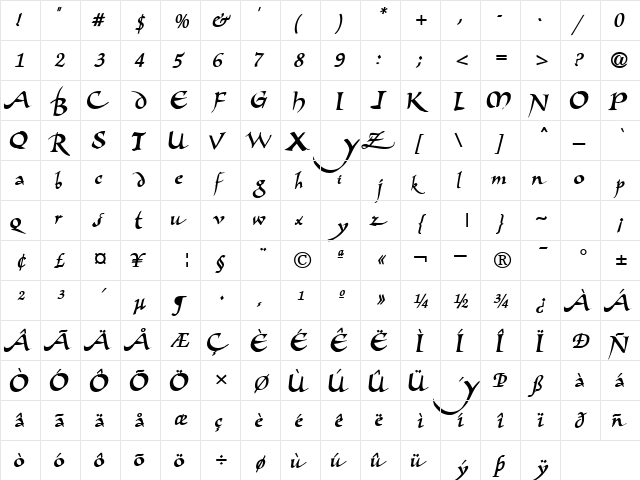
DangerousScript27 Bold
Design Context for DangerousScript27 Typeface
DangerousScript27 flows with the natural rhythm of handwritten lettering, making it ideal for designs that call for warmth and personal expression. The heavy weight commands attention and anchors typographic hierarchies.
Font Pairing: Combine DangerousScript27 with a simple geometric sans for maximum contrast — the tension between flowing curves and clean structure is a classic typographic pairing.
Pro Tip: Use DangerousScript27 for short runs of text — names, titles, or taglines. Extended body copy in script faces tires the eye quickly.